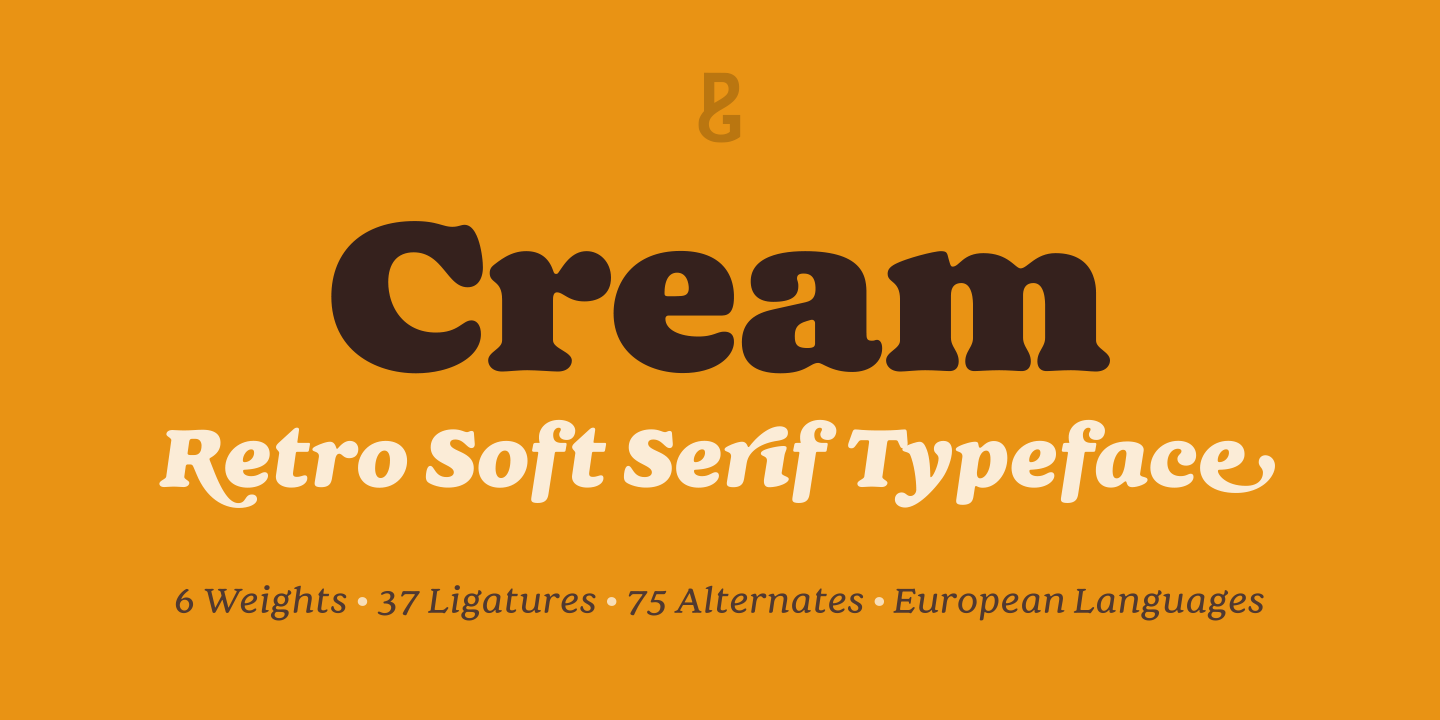
The Cream Font excels in luxury bakery branding, artisanal food packaging, premium dessert menus, boutique café identities, cosmetic product labels, elegant wedding invitations, sophisticated lifestyle magazines, and refined brand communications that require smooth sophistication with delicate charm.
What makes the Cream Font Free Download so exciting is its exceptional ability to convey luxurious smoothness and refined elegance through soft, flowing letterforms that evoke comfort and indulgence. This typeface captures the essence of premium quality and artisanal craftsmanship with gentle curves and sophisticated proportions that create an immediate sense of warmth and luxury. Its distinctive character speaks to audiences who appreciate fine quality and attention to detail, making it perfect for brands in the culinary, beauty, and lifestyle sectors seeking to communicate premium positioning with approachable elegance.
The Cream Font family includes carefully curated weight variations from Light to Bold, each maintaining the font's signature smooth character and luxurious appeal. The collection features Regular, Medium, and Bold styles with corresponding italic variants that enhance the font's elegant expressiveness. This thoughtfully designed font system provides designers with versatile typography that works beautifully across packaging, signage, digital applications, and print materials while preserving the distinctive sophistication that communicates premium quality and refined taste.
Perfect for gourmet food brands, luxury beauty companies, upscale hospitality venues, and creative agencies working with premium lifestyle clients. The font's sophisticated appeal makes it essential for package designers, brand strategists, and creative professionals developing communications that must convey luxury, quality, and refined taste. Download Cream Font Free Download today and add smooth sophistication to your premium projects with this exceptional typeface that perfectly captures the essence of luxurious indulgence.